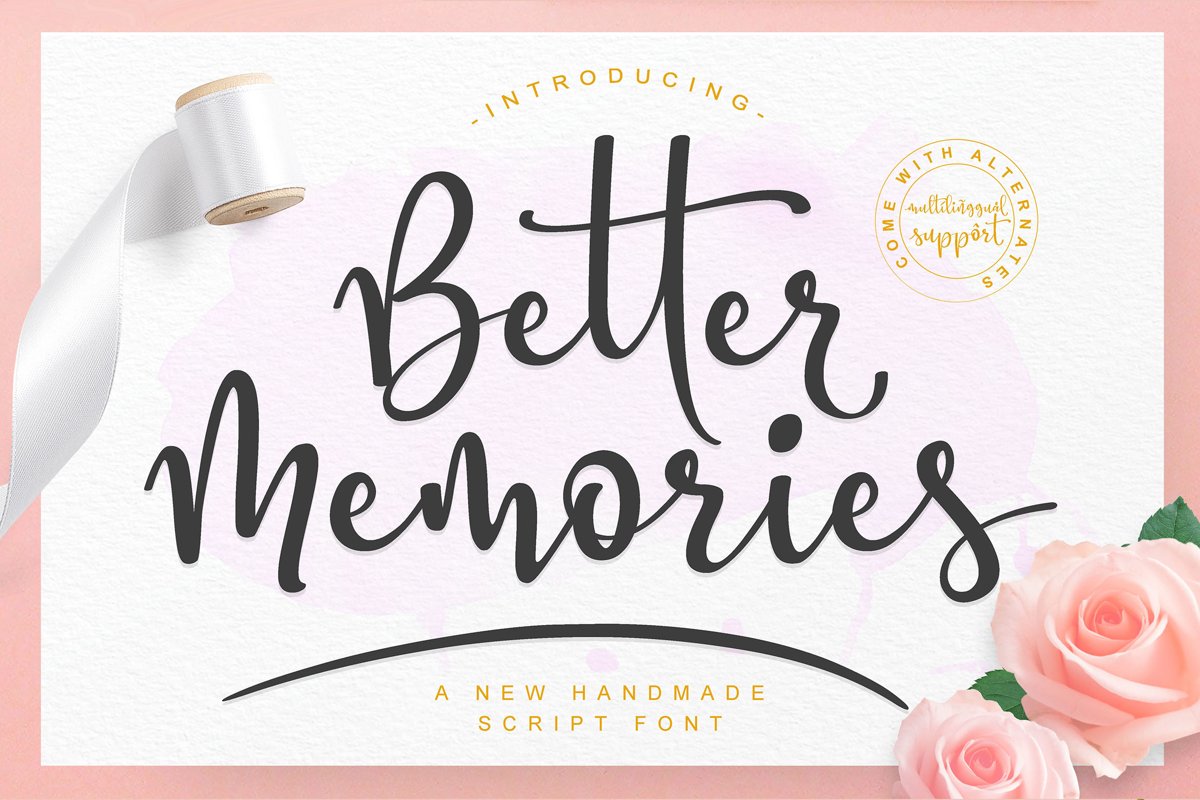
Better Memories Font
Here is new font product "Better memories".
This font is really helpfull for your project. It's the best choice font
to create product such as for logo, initial, magazine, packaging design, poster, website design, UI/UX design,
flyer, banner design and many more.
The font has smooth curve, so would be perfect for all types of printing techniques.
You can do embroidery, laser cut, gold foil etc.
Better Memories font come with multilingual support and a lot of alternates.
- 830+ glyphs
- Standard ligatures
- Basic Latin A-Z and a-z
- Stylistic set
- Stylistic Alternates
- Contextual Alternates
- Numbers
- International Symbols Support
- Multilingual support
- PUA Unicode are available!